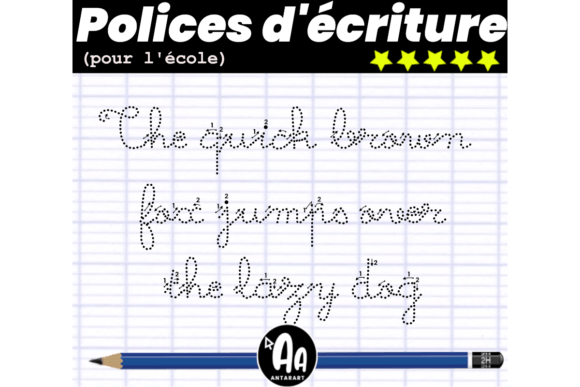
Introducing French Cursive Dotted Arrows Font: Revolutionize Your Handwriting Practice
Are you a designer, crafter, or educator looking for a unique and engaging way to teach or learn French Cursive handwriting? Look no further! The French Cursive Dotted Arrows Font is here to transform your handwriting practice into a fun and interactive experience. This innovative font is designed to help you create hundreds of worksheets using any software, making it an excellent resource for those who want to learn or teach French Cursive handwriting enjoyably and interactively.
What is French Cursive Dotted Arrows Font?
The French Cursive Dotted Arrows Font is a handwritten font that features dotted arrows to guide your handwriting practice. This font is specifically designed to mimic the traditional French Cursive handwriting style, making it an ideal tool for those who want to learn or teach this beautiful script. With the French Cursive Dotted Arrows Font, you can create engaging worksheets, handwriting practice sheets, and even interactive activities to make learning French Cursive handwriting a breeze.
Benefits of Using French Cursive Dotted Arrows Font
So, why should you use the French Cursive Dotted Arrows Font? Here are just a few benefits:
- Interactive Learning: The dotted arrows in this font provide a interactive way to learn French Cursive handwriting. The arrows guide the student’s hand, helping them develop muscle memory and improve their handwriting skills.
- Customizable: With the French Cursive Dotted Arrows Font, you can create customized worksheets and handwriting practice sheets to suit your needs. Add your own text, images, and graphics to make your resources truly unique.
- Time-Saving: This font saves you time and effort by providing a pre-designed template for your handwriting practice sheets. Simply type in your text, and the font will do the rest.
Who Can Benefit from French Cursive Dotted Arrows Font?
The French Cursive Dotted Arrows Font is an excellent resource for:
- Teachers: Educators can use this font to create engaging and interactive handwriting practice sheets for their students.
- Parents: Parents can use this font to help their children learn French Cursive handwriting at home.
- Designers: Graphic designers can use this font to create stunning worksheets, posters, and other educational resources.
- Crafters: Crafters can use this font to create beautiful handwriting practice sheets, journals, and other paper crafts.
The French Cursive Dotted Arrows Font is a game-changer for anyone looking to learn or teach French Cursive handwriting. With its interactive and engaging design, this font makes handwriting practice fun and enjoyable. Whether you’re a teacher, parent, designer, or crafter, this font is an excellent resource to add to your toolkit. So why wait? Download the French Cursive Dotted Arrows Font today and start creating stunning worksheets and handwriting practice sheets that will delight your students or children.